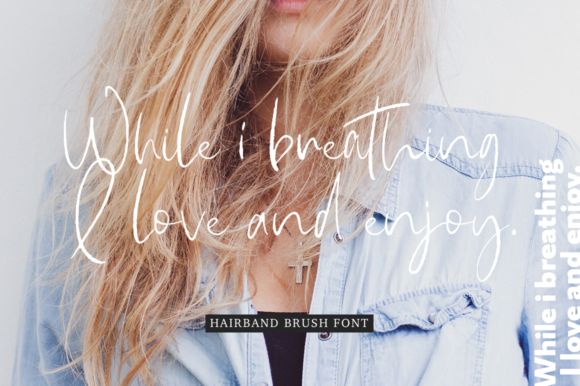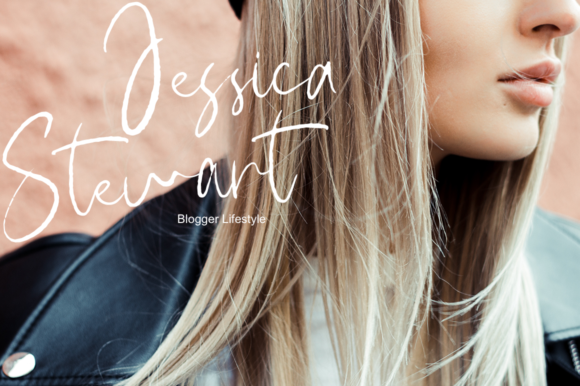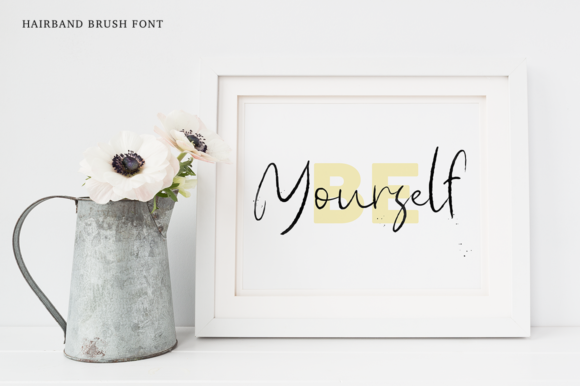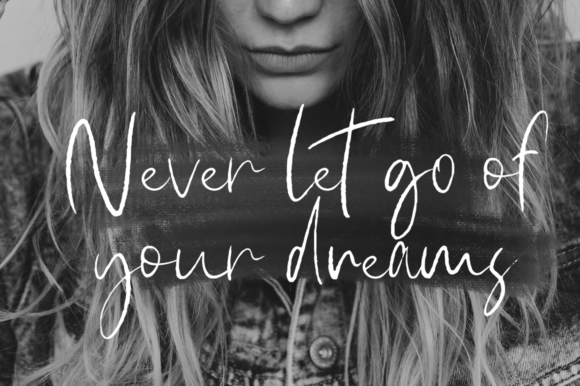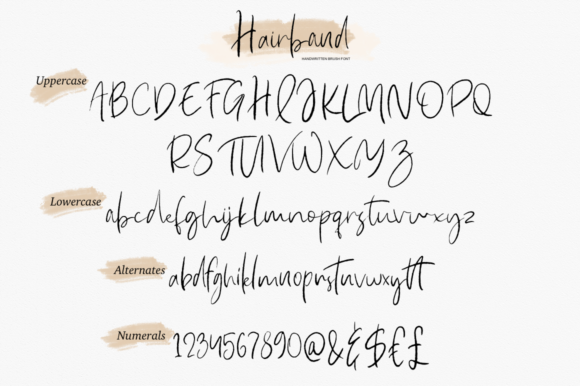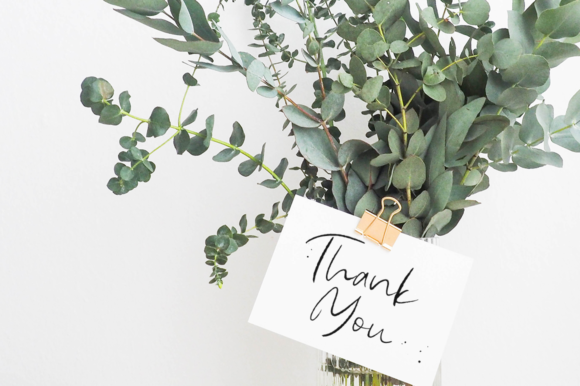
The Hairband Font: A Natural Handwritten Brush Font for Creative Projects
Are you looking for a unique and creative font to elevate your designs? Look no further than the Hairband font! This natural handwritten brush font is perfect for adding a personal touch to your projects, from branding and wedding invitations to book covers and marketing materials.
What is the Hairband Font?
The Hairband font is a beautiful, hand-crafted font that mimics the look and feel of handwritten brush script. With its natural, effortless strokes and varying line widths, this font is sure to add a touch of warmth and personality to any design. Whether you’re looking to create a rustic, vintage look or a modern, trendy feel, the Hairband font is the perfect choice.
Features of the Hairband Font
- Natural Handwritten Look: The Hairband font is designed to look like it was written with a brush, giving it a unique and organic feel.
- Versatile: This font is perfect for a wide range of projects, from wedding invitations and book covers to marketing materials and branding.
- Easily Readable: Despite its handwritten nature, the Hairband font is easy to read, making it perfect for use in both headings and body text.
- High-Quality: The Hairband font is a high-quality, professionally designed font that is sure to impress.
Uses for the Hairband Font
The Hairband font is incredibly versatile, and can be used for a wide range of projects, including:
- Wedding Invitations: Add a touch of romance and whimsy to your wedding invitations with the Hairband font.
- Branding: Use the Hairband font to create a unique and memorable brand identity for your business.
- Book Covers: The Hairband font is perfect for book covers, adding a touch of elegance and sophistication to your design.
- Marketing Materials: Use the Hairband font to create eye-catching marketing materials, such as brochures, flyers, and posters.
- Stationery: Add a personal touch to your stationery, such as notecards and letterhead, with the Hairband font.
Tips for Using the Hairband Font
Here are a few tips for getting the most out of the Hairband font:
- Use it Sparingly: While the Hairband font is beautiful, it can be overwhelming if used too much. Use it sparingly to add emphasis and create visual interest.
- Pair it with Other Fonts: The Hairband font pairs well with a variety of other fonts, including serif and sans serif fonts. Experiment with different pairings to find the one that works best for your project.
- Experiment with Colors: The Hairband font looks great in a variety of colors, from bold and bright to soft and pastel. Experiment with different colors to find the one that works best for your project.
The Hairband font is a beautiful, natural handwritten brush font that is perfect for adding a personal touch to your designs. With its versatile nature and wide range of uses, this font is sure to become a staple in your design toolkit. Whether you’re a designer, crafter, or DIY enthusiast, the Hairband font is a great choice for any project.
- Is the Hairband font easy to read?: Yes, despite its handwritten nature, the Hairband font is easy to read.